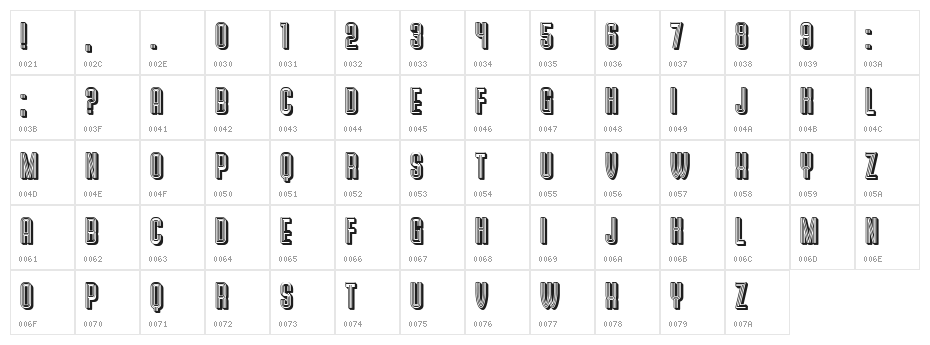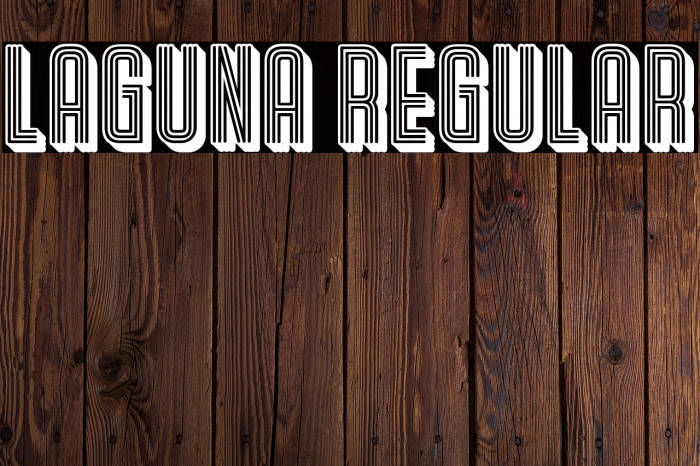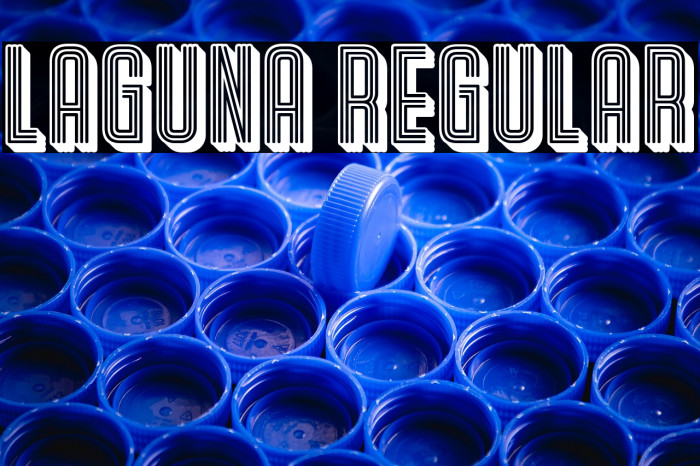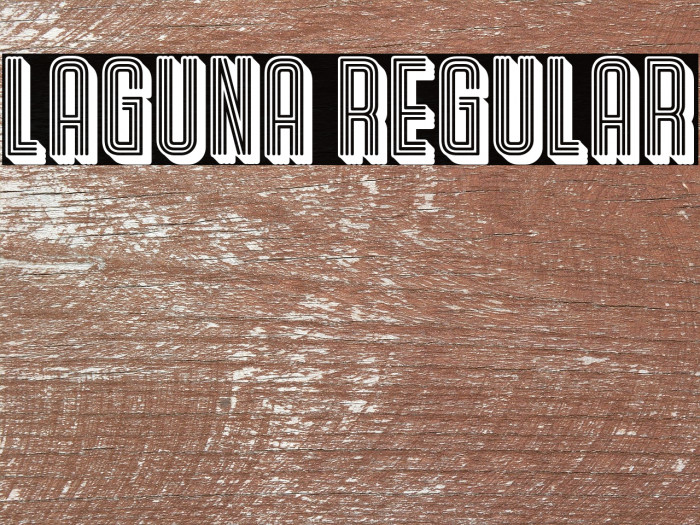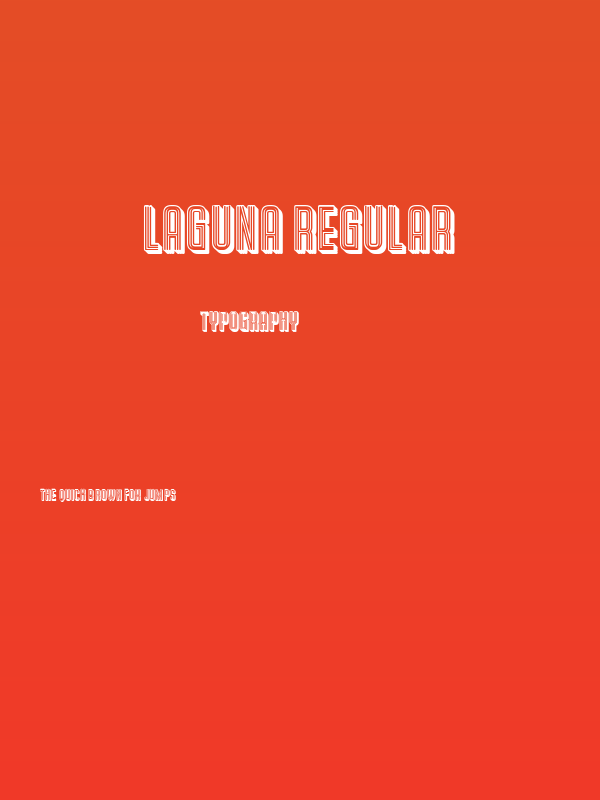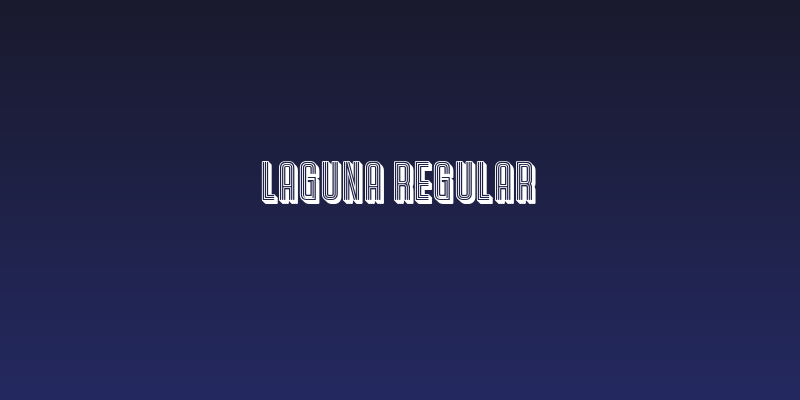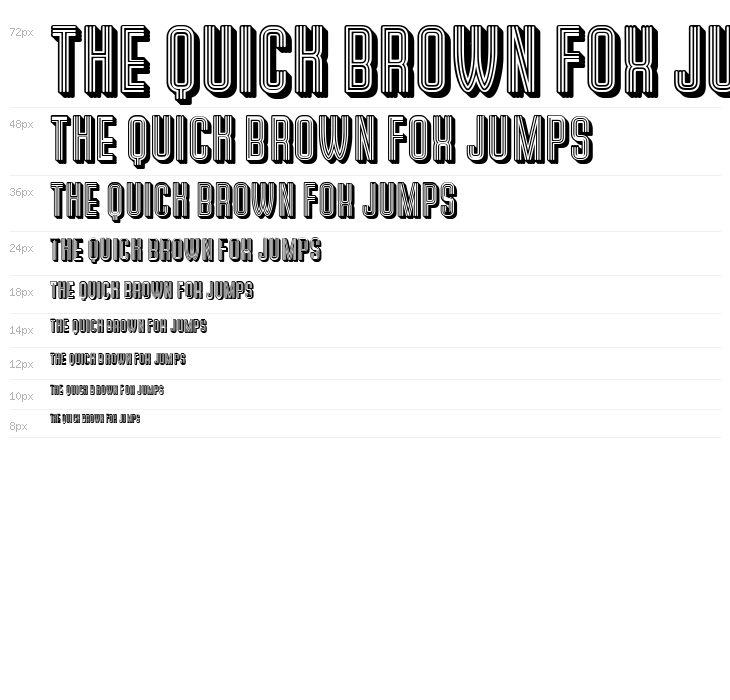
Laguna Regular Font
Laguna Regular Description
This font features a bold, decorative style with a three-dimensional effect created by its layered, outlined design. The uppercase letters are prominent and eye-catching, with a geometric structure that gives them a modern and dynamic appearance. The font's unique design includes multiple lines within each character, adding depth and a sense of movement. The numbers and special characters maintain the same bold and structured aesthetic, ensuring consistency across all elements. This font is ideal for projects that require a strong visual impact and a contemporary feel.